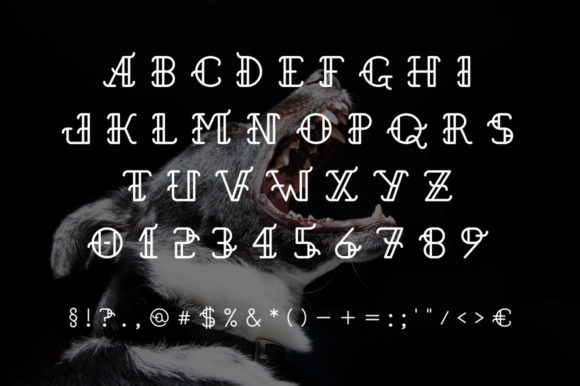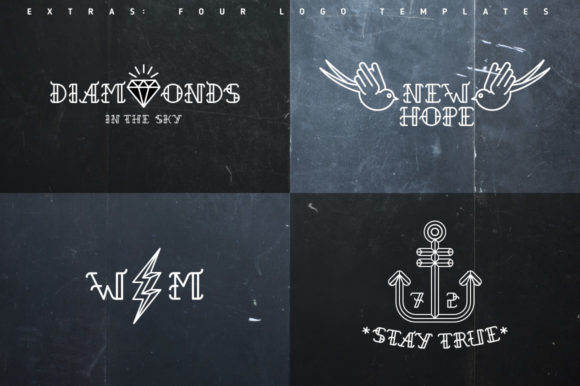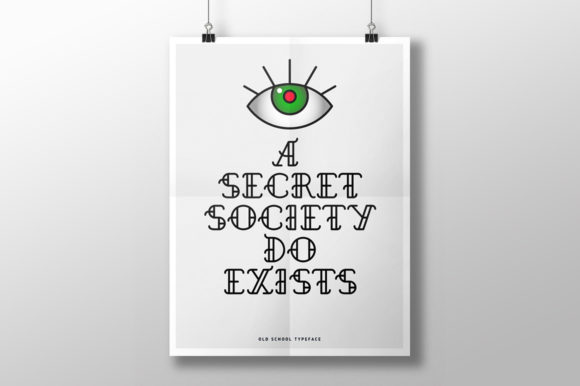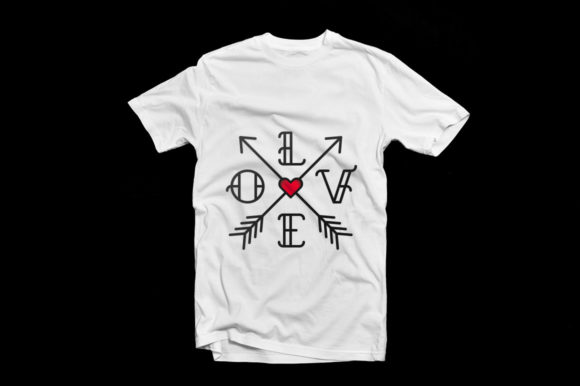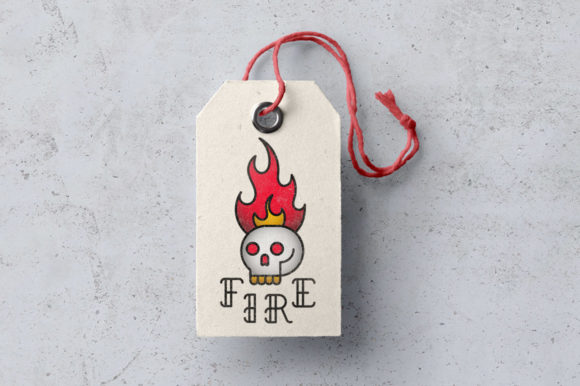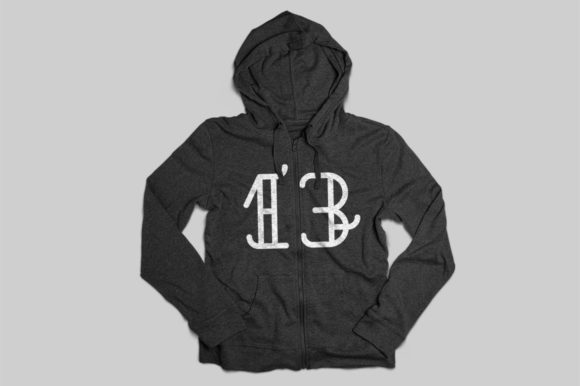
Introduction to Old School Font
Old School is a cool and interestingly designed display font.
It has a modern yet whimsical style and it will undoubtedly immerse your designs into a magical world .
Key Features of Old School Font